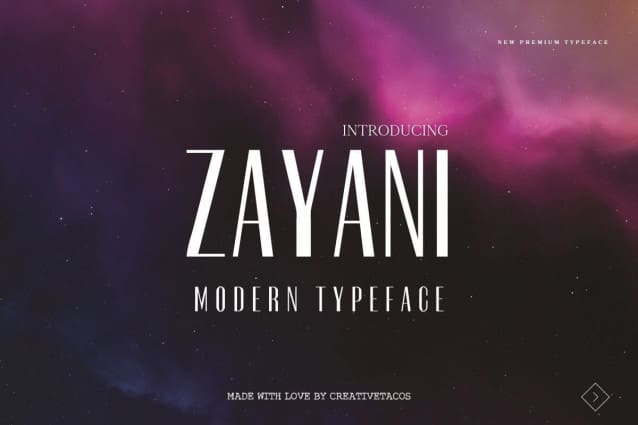
Zayani Font
Zayani Font, a stylish, modern and versatile premium font with a timeless style that will give your next designs a more vibrant, eye-catching look.